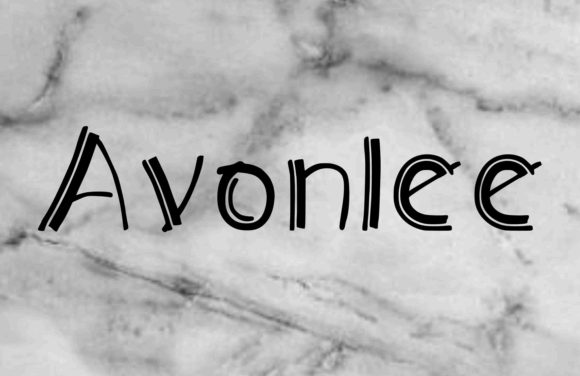
The Designer’s Delight: Unleashing the Potential of Avonlee Font
I’ll never forget the time I was working on a t-shirt design project for a client who wanted a unique, eye-catching font to make their brand stand out. I had tried countless fonts, but none seemed to fit the vibe they were looking for. That’s when I stumbled upon Avonlee Font, and it was love at first sight! ✨ The natural and unique style of this display font instantly clicked with my client’s vision, and I knew I had found the perfect fit.
So, what makes Avonlee Font so special? Here are some things I love about it:
- ✅ Unique Style: Avonlee Font has a one-of-a-kind style that sets it apart from other fonts. Its natural, effortless look makes it perfect for a wide range of designs.
- ✅ Versatility: This font is incredibly versatile and can be used on various products, from t-shirts to posters, and even digital platforms.
- ✅ Easy to Read: Despite its unique style, Avonlee Font is surprisingly easy to read, making it perfect for designs that require a bit of flair without sacrificing legibility.
- ✨ Aesthetic Appeal: The font’s aesthetic appeal is undeniable. Its elegant lines and subtle curves make it a joy to work with.
Of course, no font is perfect, and Avonlee Font has a few minor quirks:
- ⚠️ Limited Use Cases: While Avonlee Font is incredibly versatile, it’s primarily designed for display purposes. It might not be the best choice for body text or lengthy content.
- 🤔 Glyph Limitations: Some users have reported that the font could benefit from a more extensive glyph set. However, this is a minor complaint, and the font still offers plenty of creative possibilities.
The Story Behind Avonlee Font
Avonlee Font was designed with the goal of creating a unique, versatile font that could be used for a wide range of designs. The designer drew inspiration from natural, effortless styles and aimed to create a font that would be both elegant and easy to read.
| What is Avonlee Font best used for? | Avonlee Font is best used for display purposes, such as t-shirt designs, posters, and other visual projects that require a unique, eye-catching font. |
| Is Avonlee Font easy to read? | Yes, despite its unique style, Avonlee Font is surprisingly easy to read, making it perfect for designs that require a bit of flair without sacrificing legibility. |